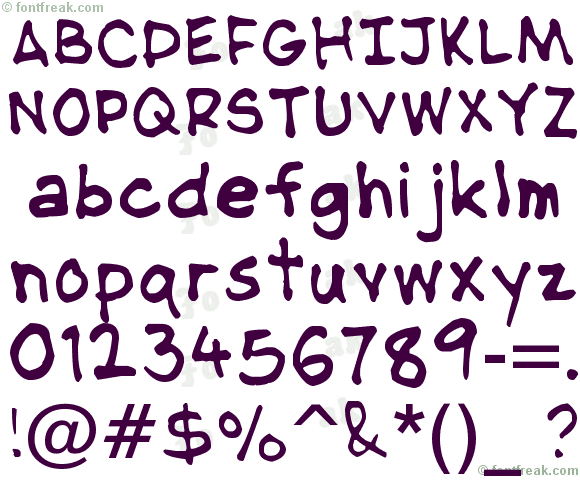
NipCen's Handwriting Light
NipCen's Handwriting Light is a delightful handwritten font designed by Jayvee Enaguas. This font falls within the script category, capturing the essence of casual, personal handwriting. Its playful and approachable style is characterized by light stroke weights that convey a sense of warmth and familiarity. The characters exhibit a slight irregularity that adds to their charm, making this font feel authentic and inviting. The spacing between the letters is relaxed, ensuring readability while maintaining a hand-crafted aesthetic.
This font is ideal for various applications, particularly those that require a personal touch. Wedding invitations benefit greatly from the soft elegance of NipCen's Handwriting Light, providing a sense of intimacy to the special occasion. Additionally, this font excels in crafting heartfelt greeting cards, where its unique character can convey emotion and sentiment effectively. Small business owners can utilize it for branding materials, such as packaging designs or promotional flyers, to create a friendly and approachable image. Moreover, it can enhance restaurant menus by adding a creative flair that reflects a welcoming atmosphere.
Targeted towards graphic designers, small business owners, and content creators, NipCen's Handwriting Light is versatile enough to suit a variety of projects. Its freeware license makes it accessible for anyone looking to add a unique handwriting style to their work without the burden of licensing fees.
What sets NipCen's Handwriting Light apart is its ability to blend professionalism with a personal touch. This font stands out not only for its charming appearance but also for its versatility across different mediums. Whether you're designing for a special event or crafting marketing materials, NipCen's Handwriting Light font free download offers a unique solution to elevate your design projects.